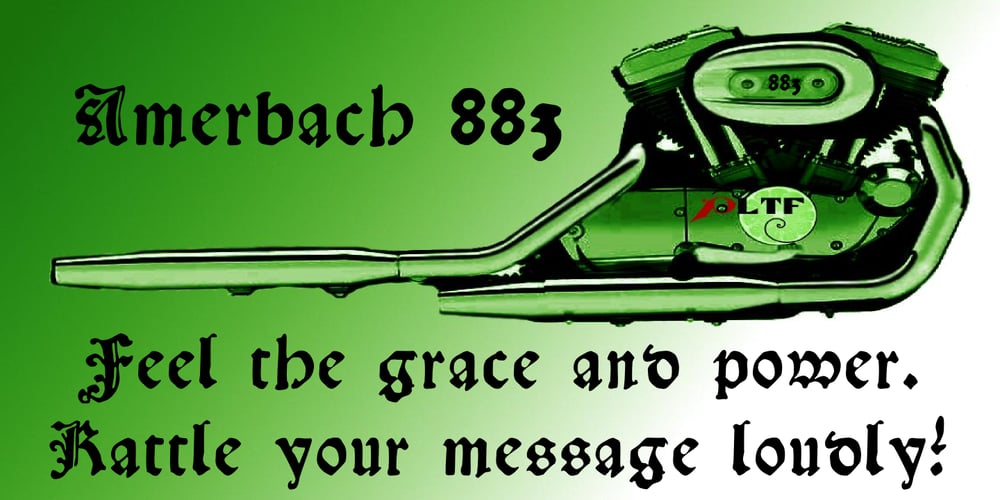
Amerbach 883 Font Family was designed by Shane Brandes and published by Proportional Lime. Amerbach 883 contains 3 styles and family package options. Johann Amerbach was a very successful printer in the city of Basil, Switzerland. He maintained an extensive network of scholars and issued over a 100 works during his 35 years in the business. He is notable for printing works of the church fathers and also for spreading the use of Antiqua fonts in the German speaking lands. This font is not an Antiqua, but Johann Amerbach’s font now cataloged as Veröffentlichungen der Gesellschaft für Typenkunde des 15. Jahrhunderts Typ.1:184G GfT883. This would fall into the rotunda subfamily.